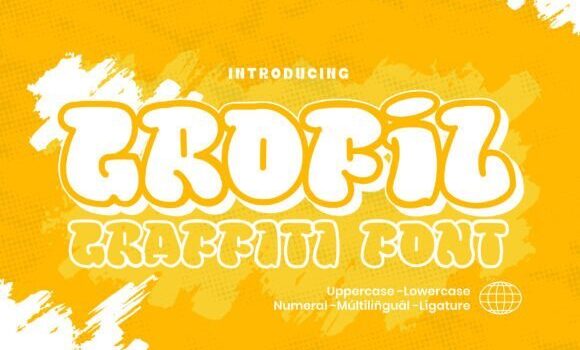
grofil
Grofil Font – Free Download Introduction to Grofil Font Grofil, a Graffiti Font, is perfect for anyone looking for a bold, Throw-Up Style font. 📸 Preview Gallery 6 images 📌 Product Name Grofil Font 👤 Author Rasiorise Studio 📂 Category